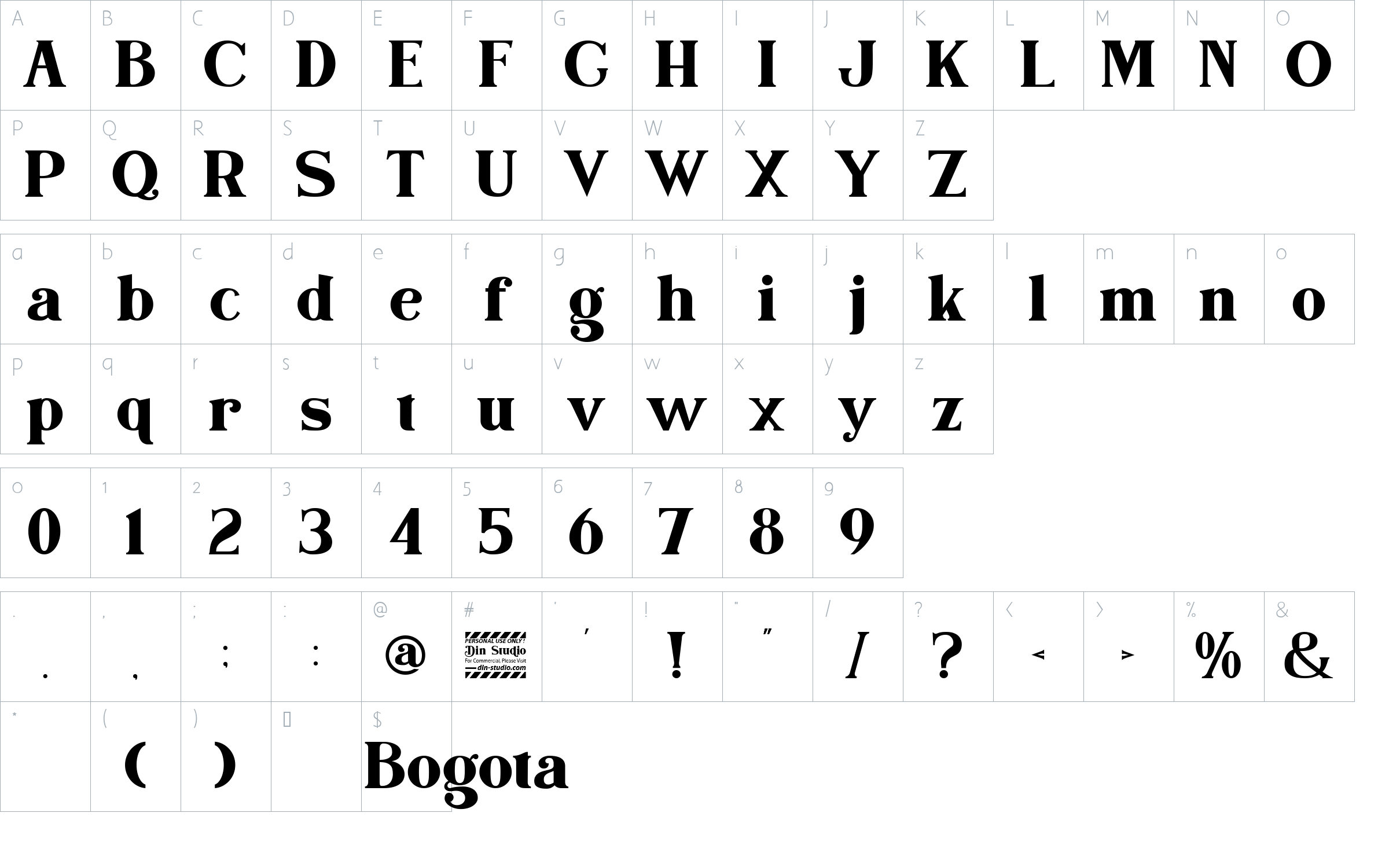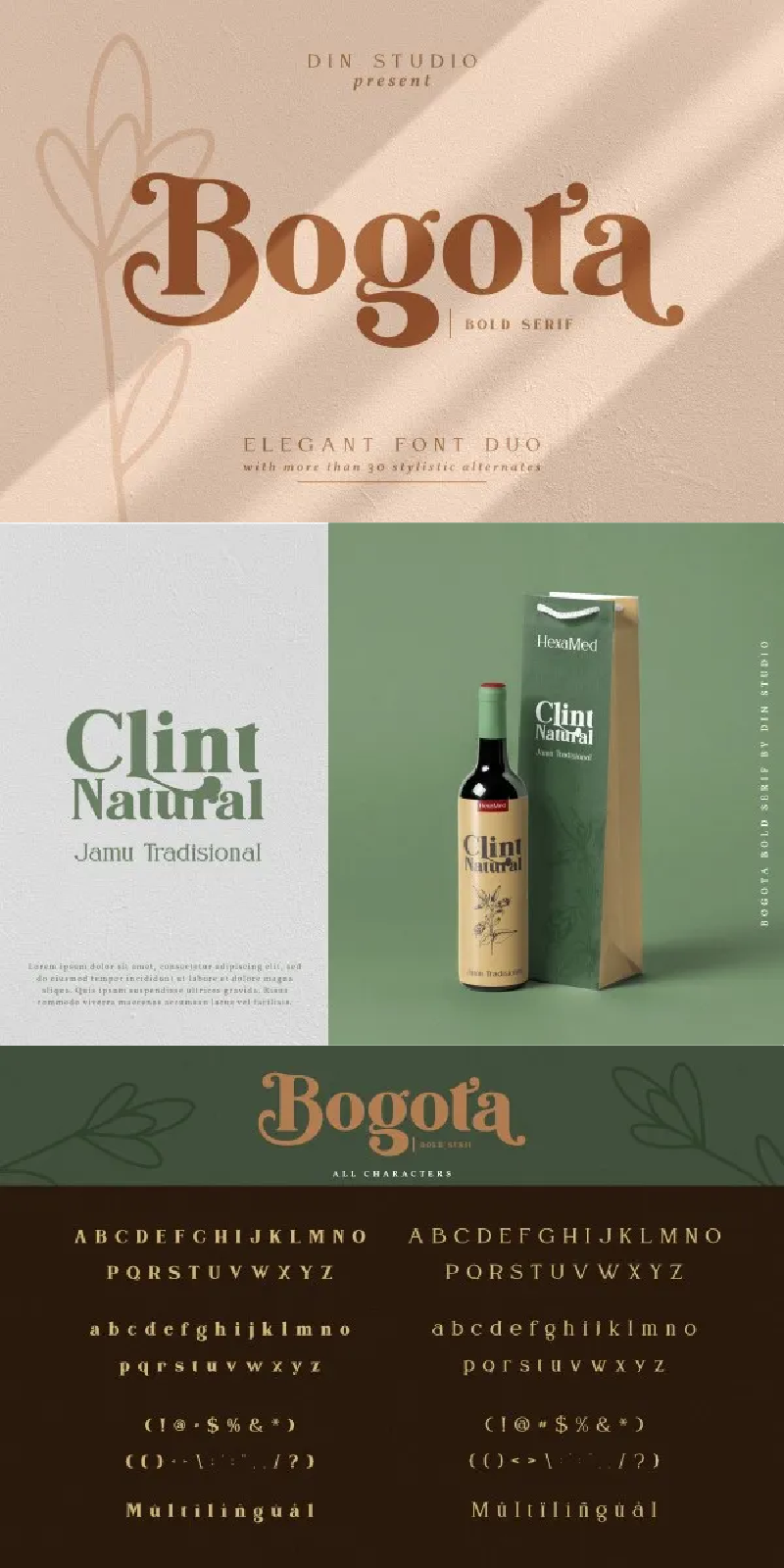
Bogota Font
About Bogota
Hello, Everyone! Let’s welcome the Bogota font, a modern and clean display (Serif) font created by our talented font designers. The typeface design makes your designs more beautiful and inspiring. This font is suitable for any projects, like brandings, printed templates, logos, etc. The font is also available in a thin version (pairing font).
See the previews above to get some inspiration on how you can use them. Enjoy the font!